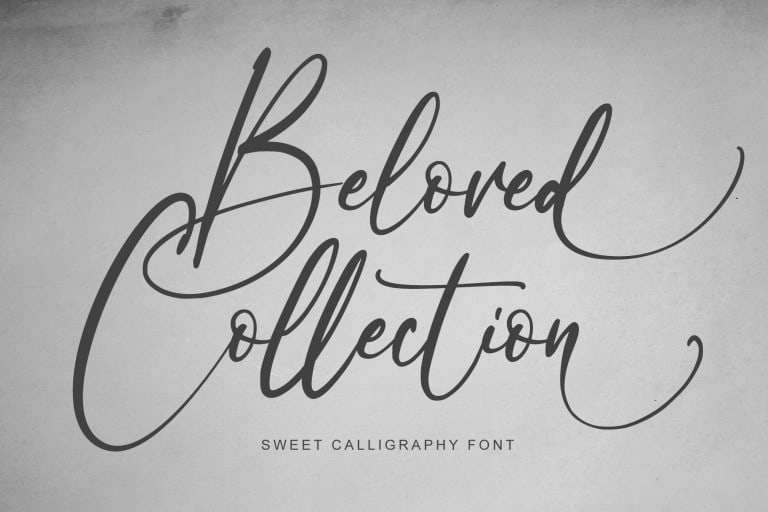
Beloved Collection Font
Beloved Collection – modern calligraphy script font with a handmade calligraphy style, decorative characters and a dancing baseline! This font is great for your next creative projects such as watermark on photography, album cover, logo, business card, and many other design project.
Beloved Collection comes with uppercase letters, lowercase letters,alternate lowercase letters, multilingual support, numbers and punctuation